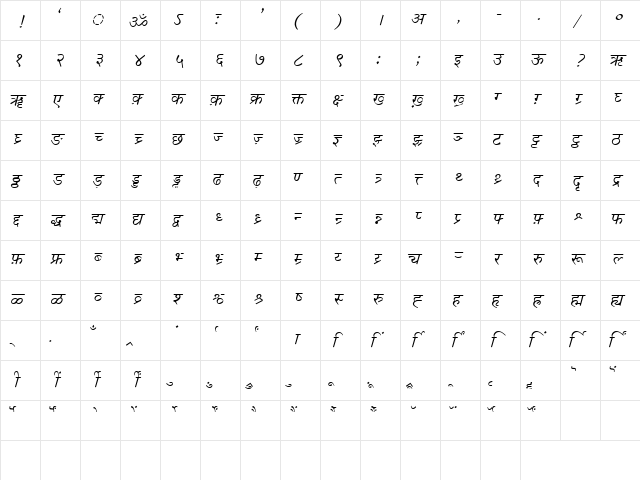
DV-TTSurekh Italic
Design Context for DV-TTSurekh Typeface
DV-TTSurekh takes a measured approach to typography — its balanced proportions and neutral character make it a reliable workhorse for both digital and print work. Its italic angle brings a sense of urgency and motion to the letterforms.
Pro Tip: Try DV-TTSurekh for annotation and caption copy alongside an upright companion — the contrast in angle creates a dynamic but ordered typographic system.